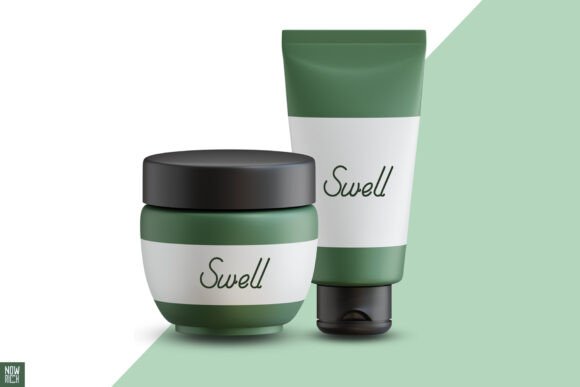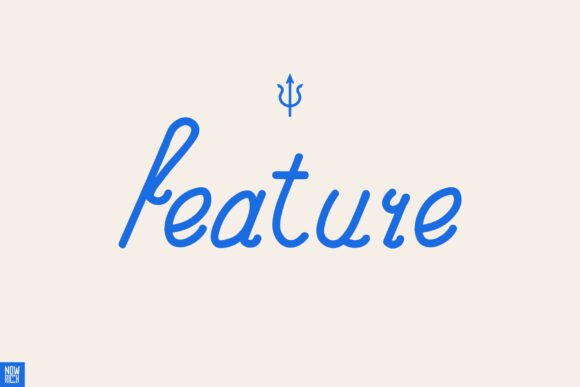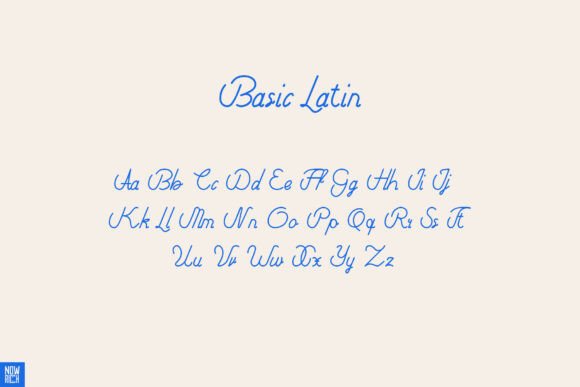
Introduction to Pistia Font
Have you ever found yourself staring at a blank canvas, struggling to bring your creative project to life? For many designers, it’s the perfect storm of inspiration and frustration. But what if I told you there’s a secret ingredient that can elevate your design from bland to grand? Enter Pistia Font, the perfect blend of classic charm and modern simplicity.
Pistia Font is more than just a pretty face – it’s a design resource that’s both elegant and readable. Its smooth, friendly script is perfect for branding, product packaging, and headlines, making it a valuable addition to any designer’s toolkit. And the best part? It’s available for free download, making it an accessible high-quality design asset for designers of all levels.
With Pistia Font, you can add a touch of personality to your designs without sacrificing clarity. Whether you’re working on a creative project or just need a reliable design resource, Pistia Font is the perfect choice. Its transparent background and support for multiple languages make it a versatile and reliable companion for designers everywhere.
Key Features of Pistia Font
- It offers a unique combination of elegant and modern design elements, making it an excellent design resource.
- This font is ideal for creative projects that require a sophisticated and stylish look, such as branding, advertising, and editorial designs.
Honest Review: Pistia Font
I recently had the chance to work with the Pistia Font, and I must say it’s been a game-changer for my creative projects. This free download has proven to be a high-quality addition to my design resource arsenal.
What works well: ✨ The Pistia Font offers a unique and elegant design that’s perfect for creating eye-catching headers and titles. The transparent background allows for seamless integration into any design, making it a versatile choice for various creative projects. Additionally, the font’s high level of detail and intricate design elements make it a standout in my collection.
What doesn’t work well: ⚠️ One potential limitation is the font’s limited character set. I found myself having to use a combination of other fonts to achieve the desired text, which can be time-consuming and may not always produce the desired result. Additionally, the font may not be suitable for use in small sizes or low-resolution designs.
Overall, I’m impressed with the Pistia Font’s potential and would recommend it to designers looking for a unique and high-quality design resource. However, it’s essential to be aware of its limitations and use it judiciously in your creative projects.
- Unique and elegant design
- High-quality and detailed design elements
Pistia Font
Tips for Getting the Most Out of Pistia Font
To get the most out of Pistia Font, use it with a transparent background to create a clean and modern design. Experiment with different font sizes and styles to add visual interest to your project.
Common Use Cases for Pistia Font
Pistia Font is commonly used in creative projects such as logos, brochures, and social media graphics. Its high-quality design and transparent background make it an ideal choice for designers looking to add a professional touch to their work.